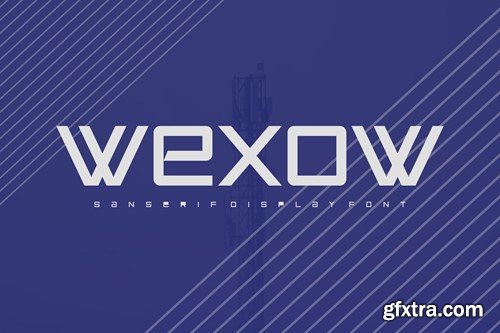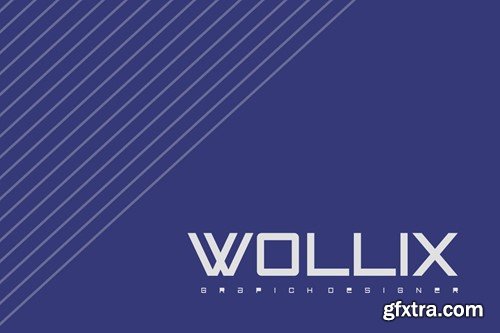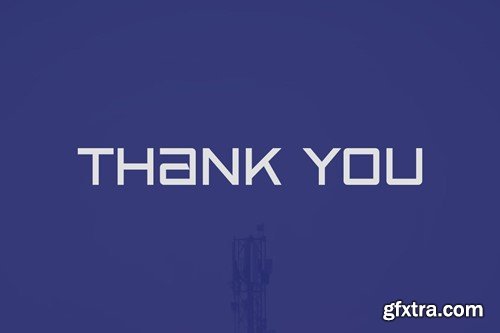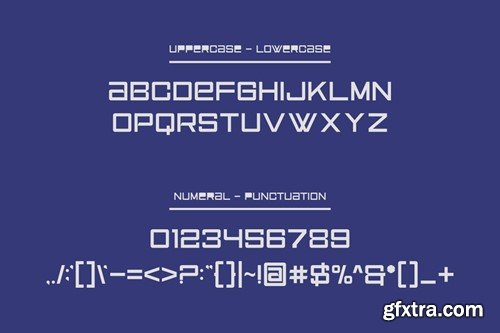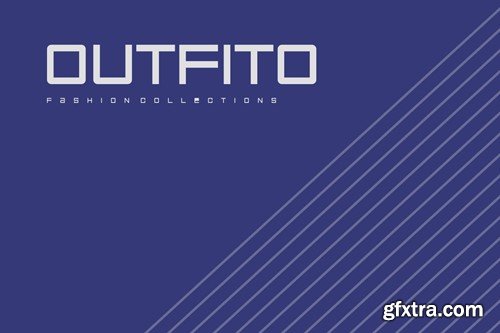
Wexow Font
Introducing our new product Wexow Font - Modern Font Wexow Font- Modern Font is a bold and authentic display font. The font is suitable for any branding project like logo, t-shirt printing, esport, and many more. outstanding in a wide range of contexts. availlable